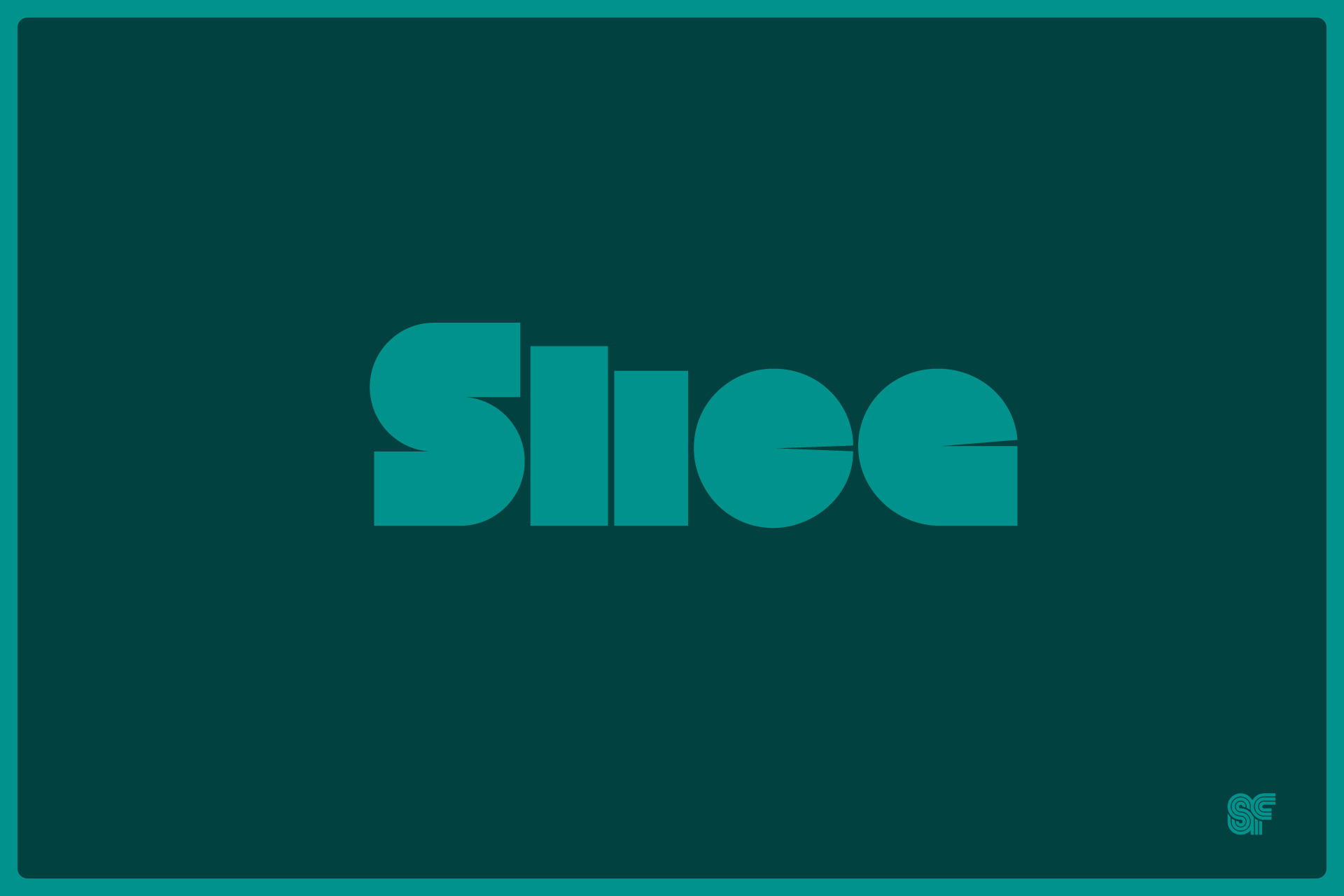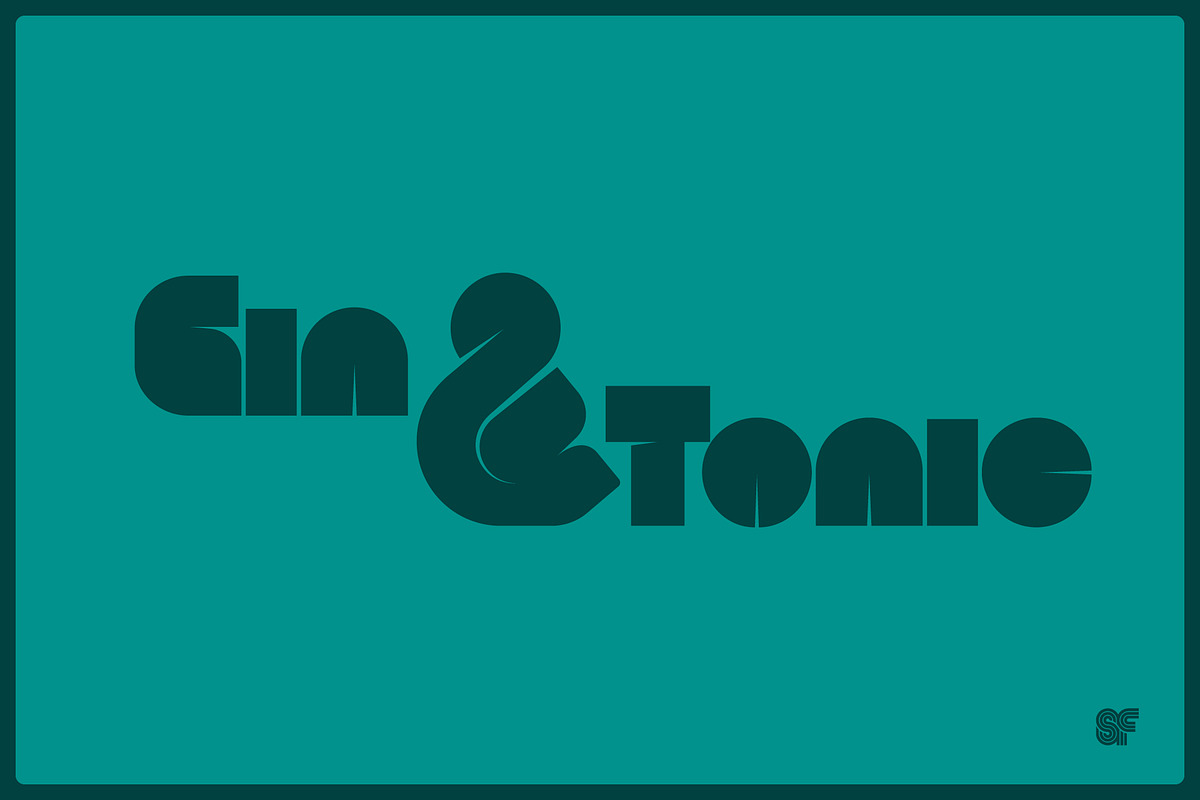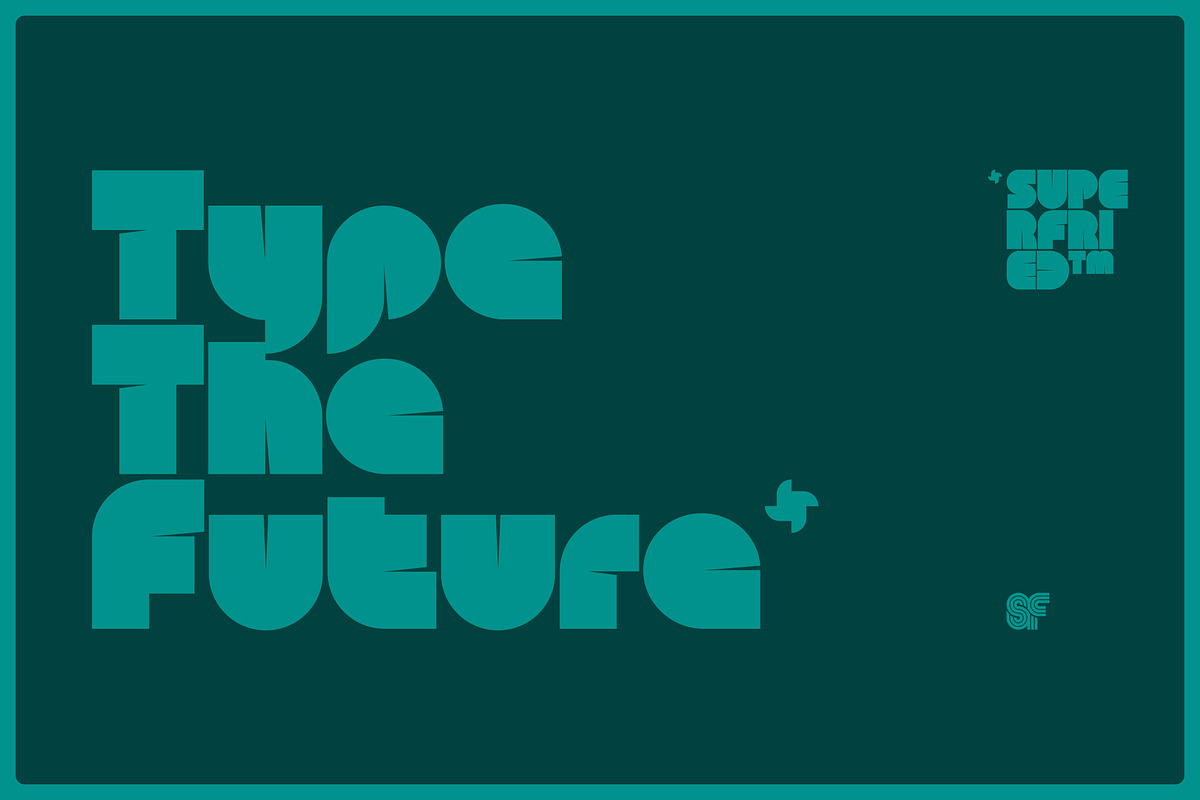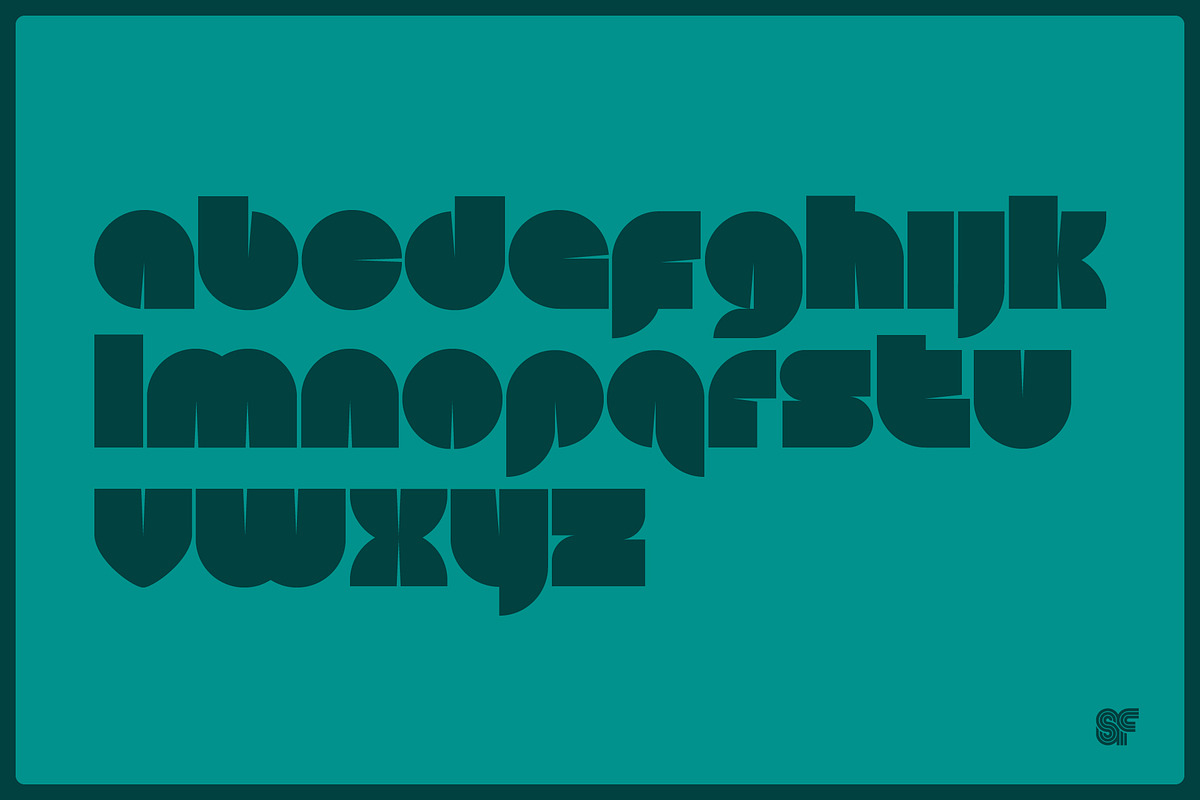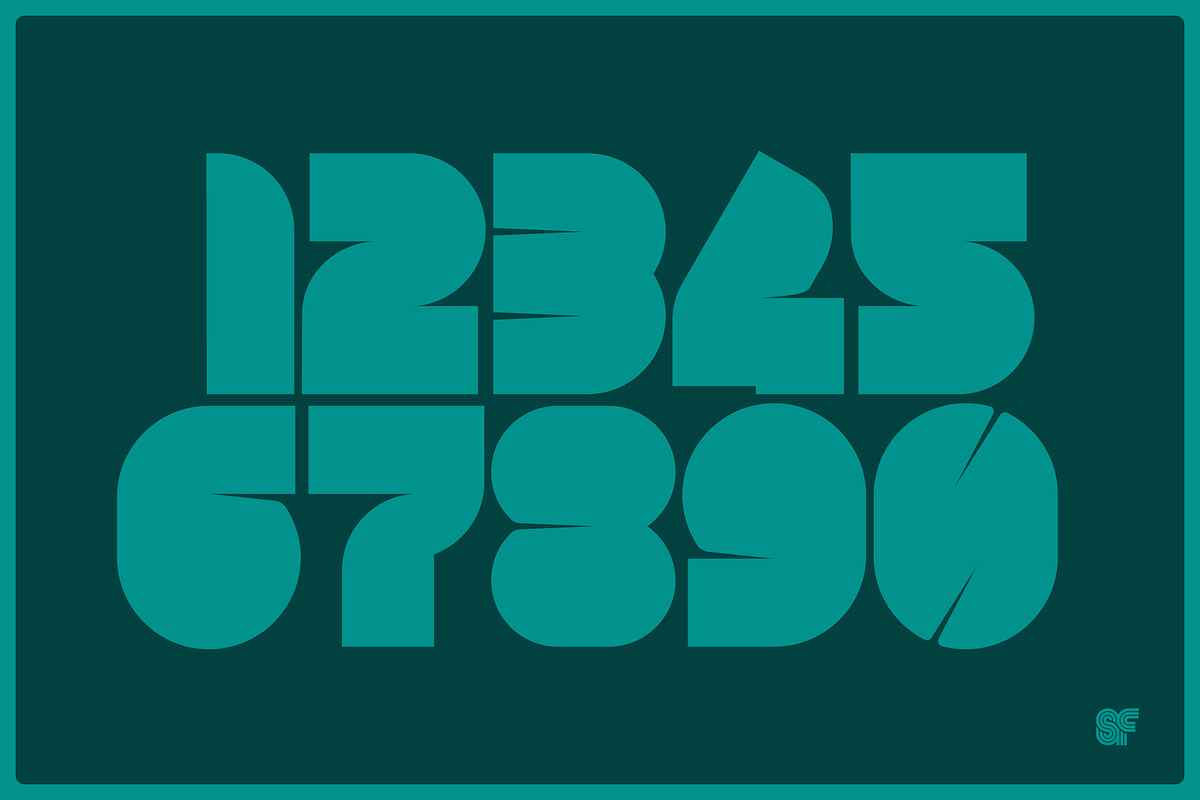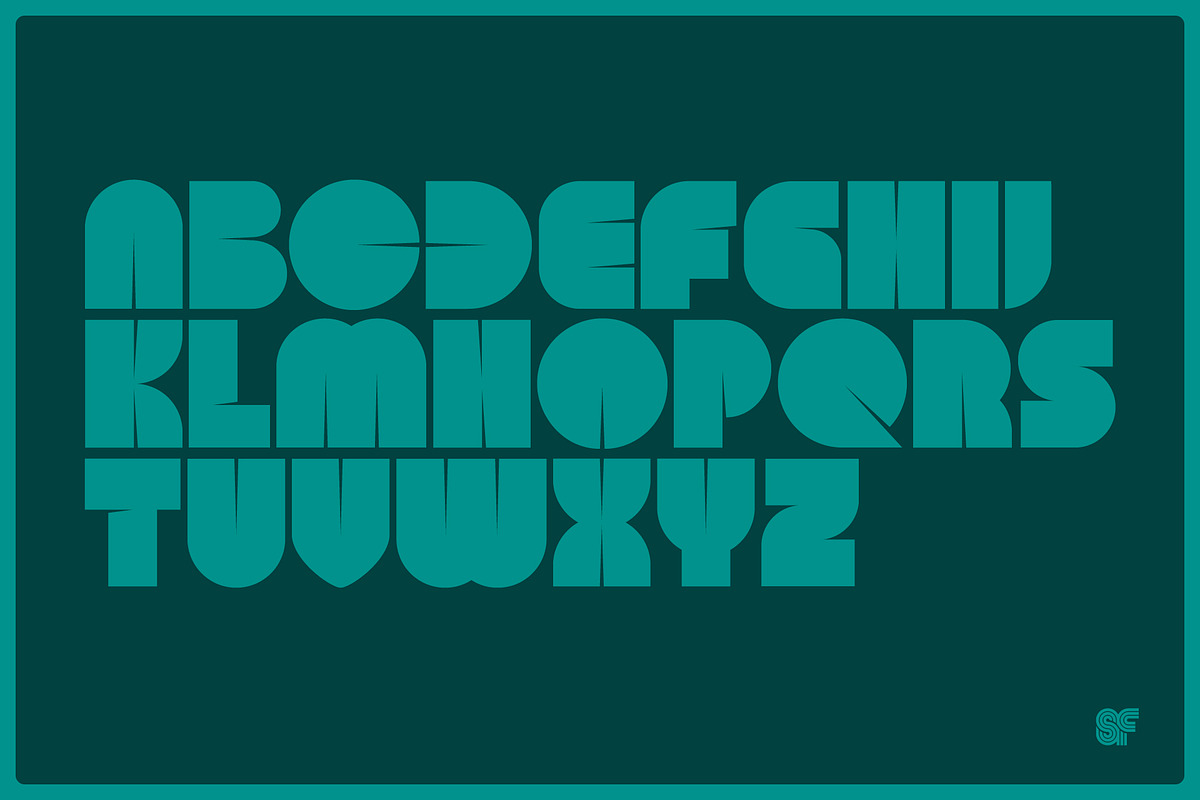
SLICE | Retro Display Font
NEW - Remastered for 2025!
Originally designed in 2011 by Superfried, Slice is an innovative circular display font that stands out with its unique incisions, similar to its cousin, Slash. However, Slice embraces a more minimalist aesthetic, relying on fundamental geometric shapes while offering both uppercase and lowercase options. With its retro vibe and bold, chunky structure, Slice is perfect for high-impact display use in branding, editorial design, and web applications.
The 2025 remaster includes refined character designs and enhanced spacing, ensuring a modern touch while retaining its distinctive charm. Discover the versatility and striking presence of Slice in your next creative project!